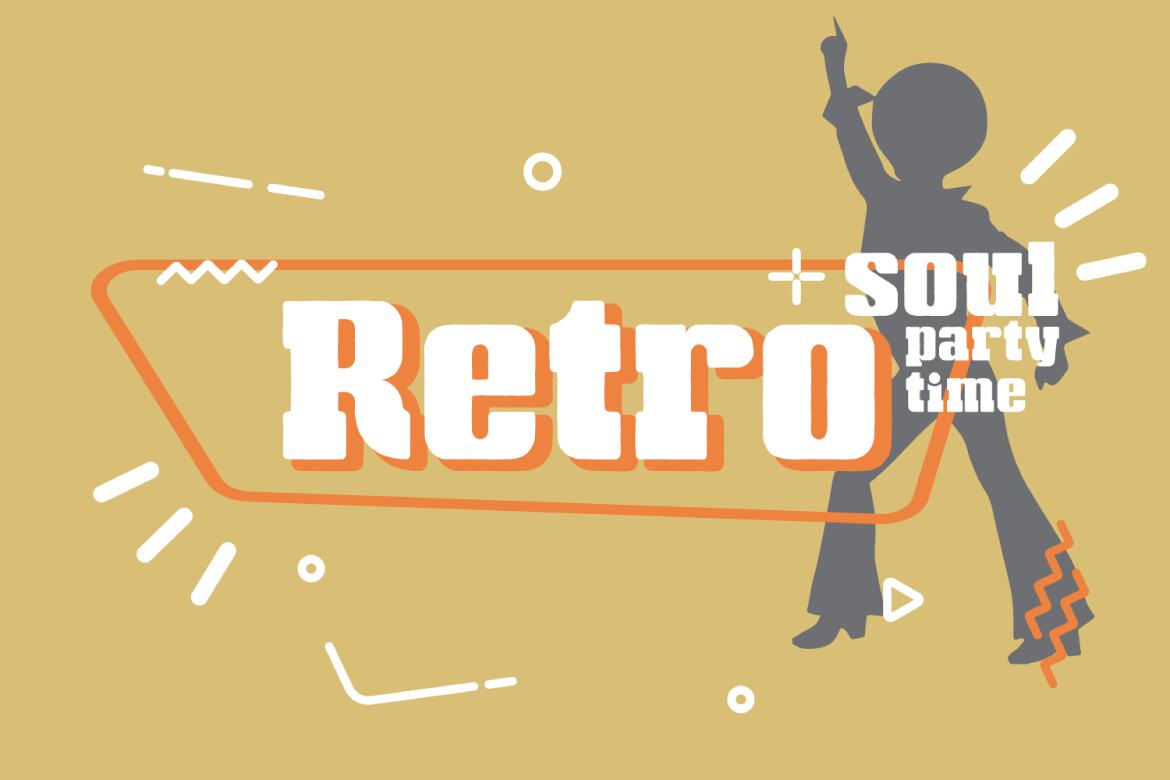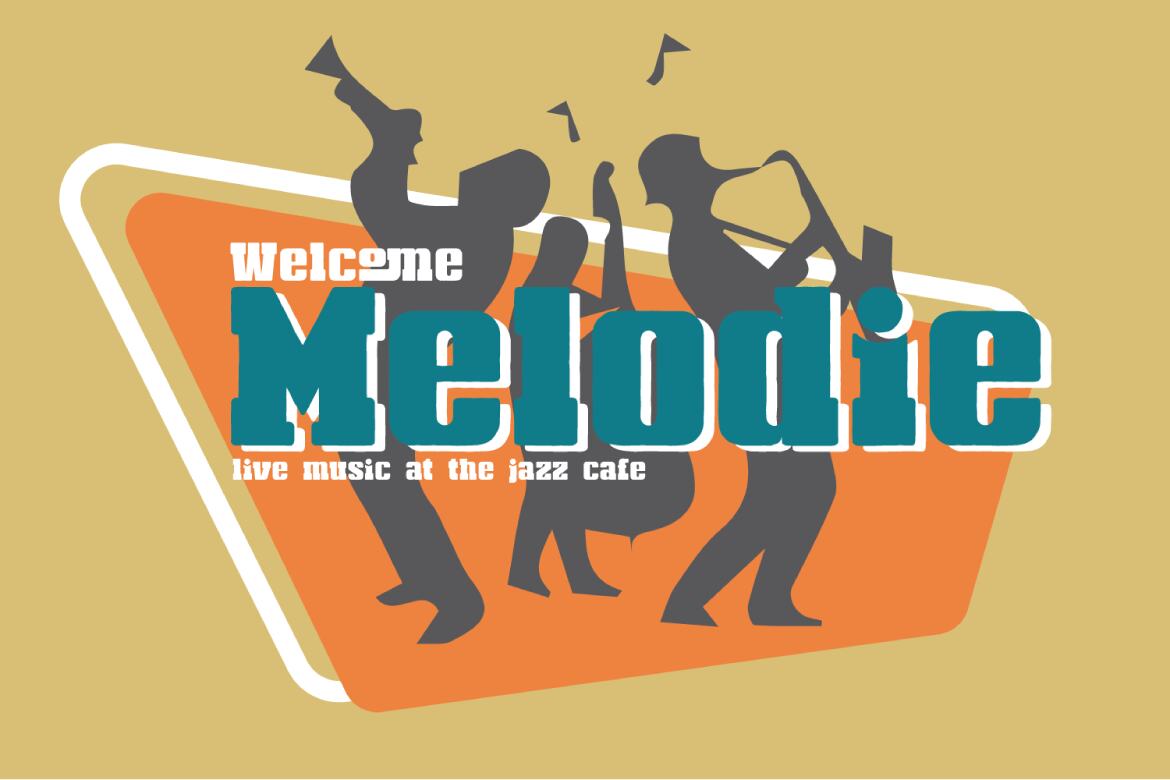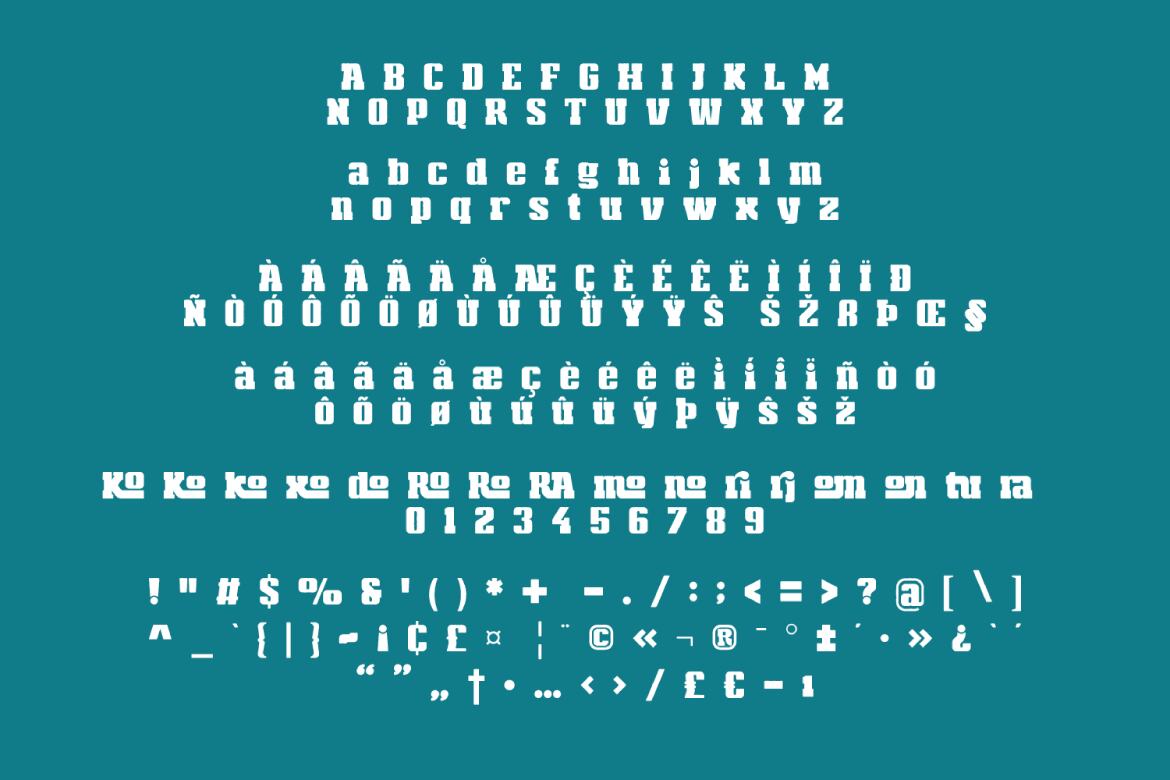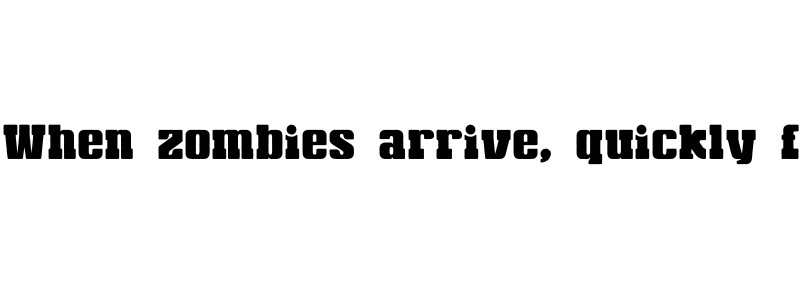
Hipnot
Hypnot is a very heavy slab-serif font for titling, captions and logo. this font is similar to amoba font, but it comes in round and rough shapes.
Hipnot offers you: Upper and Lowercase characters Ligatures Multilingual Support (Latin Western Europe), Numbers and Punctuation
• bold style
• hypnot is a very heavy slab-serif font for titling, captions and logo